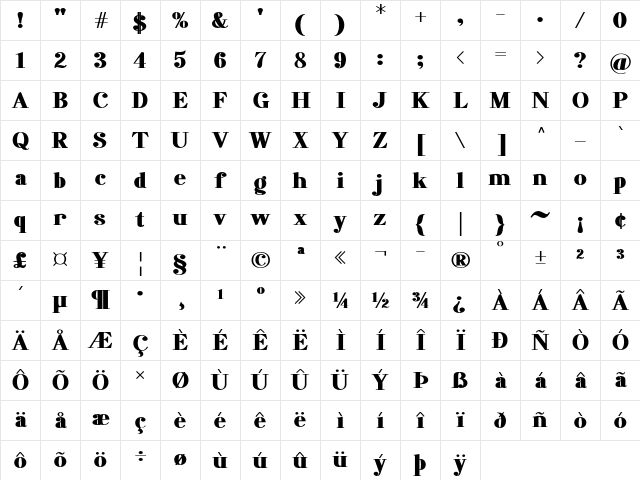
Pinkney Lane Bold
Pinkney Lane Family
Pinkney Lane Bold
Complete Pinkney Lane Bold glyph index. Displaying only characters natively supported by Pinkney Lane Bold font.
Design Context for Pinkney Lane
Pinkney Lane is a composed and adaptable typeface that performs quietly and consistently across a wide range of design contexts. Its bold stroke weight gives it real presence on the page.